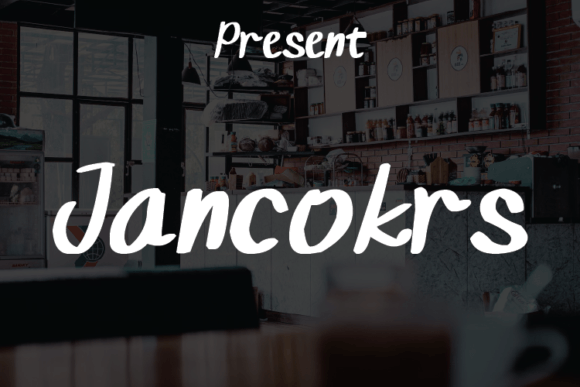
Journey into the world of Jancokrs, a captivating handwritten font that dances across your designs with charm and personality. Crafted with meticulous care by Eric Kusuma, this script masterpiece stands out from the ordinary, inviting you to explore its boundless creativity.
Unleash your inner artist with Jancokrs, a font that speaks directly to the heart. Its flowing lines and playful characters bring a touch of magic to every word, transforming your designs into captivating expressions of art. Whether you're creating greeting cards that warm hearts, headlines that command attention, or social media posts that spark conversations, Jancokrs is your ultimate tool to make a lasting impression.
Embrace the endless possibilities that Jancokrs presents. Its versatility knows no bounds, seamlessly adapting to a myriad of projects and styles. Let your imagination soar as you weave words into works of art, adding a touch of whimsy to invitations, a dash of elegance to logos, and a burst of personality to branding materials. With Jancokrs by your side, your creative potential becomes limitless.
Picture this: a greeting card adorned with Jancokrs' heartfelt strokes, carrying messages of love, friendship, and gratitude. Its enchanting curves draw the recipient in, creating a profound connection that transcends words. Or envision social media posts and headlines that dance with Jancokrs' playful charm, capturing attention and igniting curiosity. The possibilities are endless, waiting for you to explore and discover.